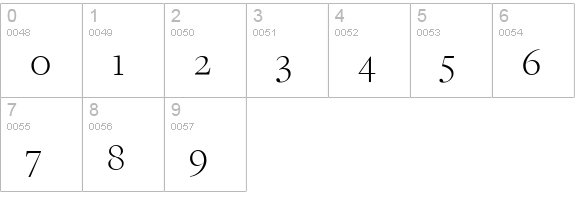
FreightDispLight Font Details
FreightDispLight font is a modern and elegant typeface that exudes sophistication and clarity. With its sleek lines and balanced proportions, this font is perfect for conveying a sense of professionalism and style in any design project. The light weight of the font adds a touch of delicacy and refinement, making it ideal for use in headlines, branding, and editorial design. Best of all, FreightDispLight font is available for free download at FontsMarket.com. This means you can easily access and use this versatile font in your projects without any cost. Don't miss out on the opportunity to enhance your designs with the timeless elegance of FreightDispLight font - download it today and elevate your typography game!